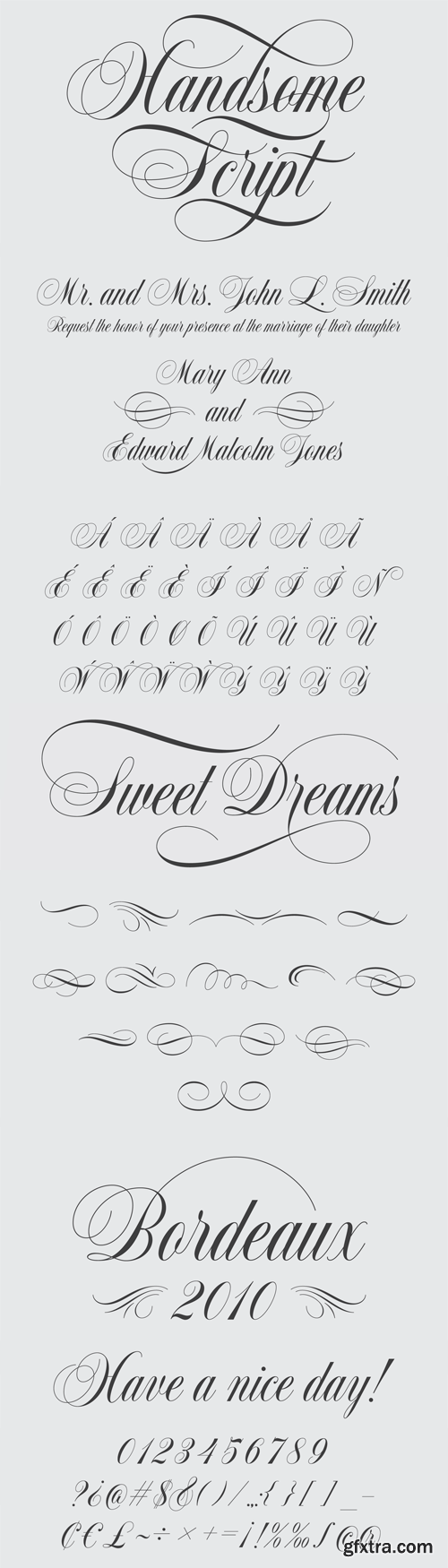
- The morning ritual of drawing script letters lead to the creation of Handsome Script by TDF designer Drew Melton. Handsome Script elegantly bridges the gap between traditional script penmanship and a modern script typeface with legible forms, expressive flourishes and lavish alternative characters that are enabled via OpenType. Handsome Script looks superb as a headline with the supporting special illustrative flourish glyphs that are included in the glyphs panel.